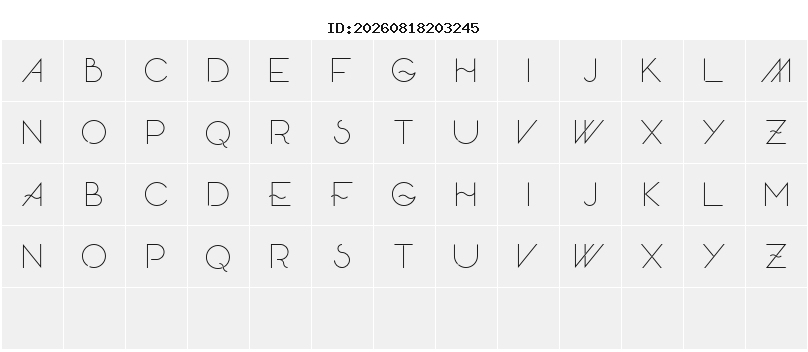
Skandar Preview
• Font Name: Skandar
• Designer: Paulo R
About Skandar.otf
Skandar.otf is a modern, elegant sans-serif font designed for ultimate readability and visual harmony. Perfect for branding, headlines, web design, and print materials.